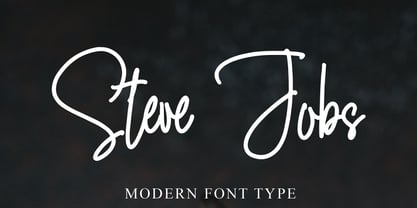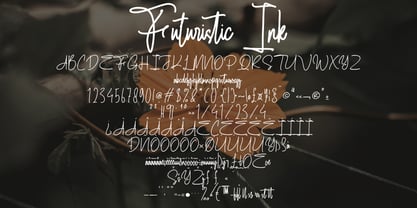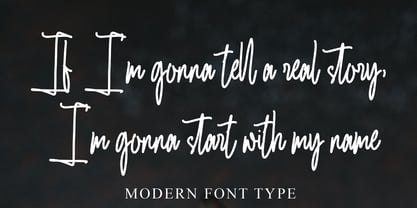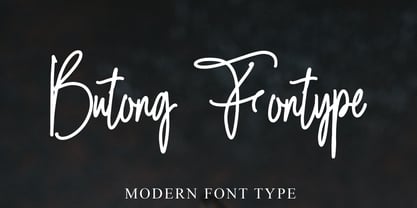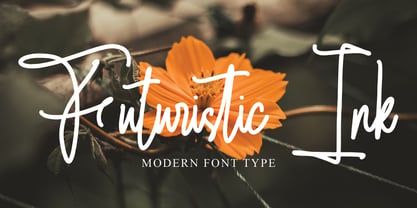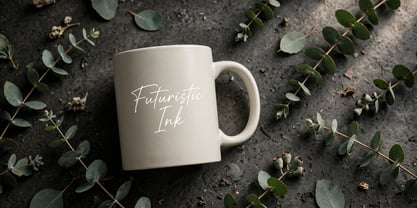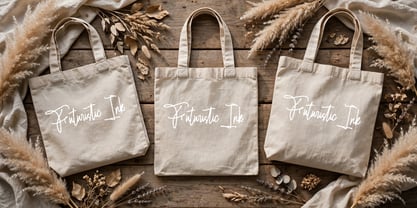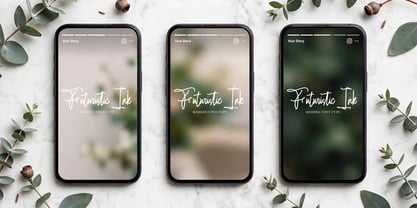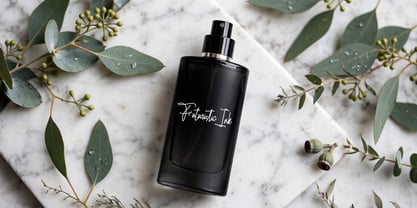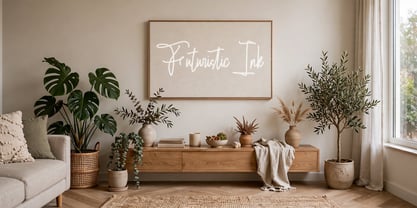
Futuristic Ink
by Ayska
The Futuristic Ink Font Family was designed by Dhoni Trihatmoko and published by Ayska. Futuristic Ink contains 1 styles. More about this family
Immerse yourself in the captivating world of Futuristik Ink, an extraordinary font that perfectly melds modern flair with the rustic grace of hand-drawn typography. Futuristik Ink exudes a refined sophistication that propels it into its own exclusive class, transforming it into an essential resource for all creative pursuits. Allow this mesmerizing font to engage your blog audience, impart a unique signature look to your digital planner designs, add an intriguing touch to your party invitations, and convey emotions in your homemade greeting cards with tasteful finesse. Explore the unending elegance and imaginative vibrancy of Futuristik Ink and witness how it breathes new life into your carefully curated photo albums or customized home decor collections. This font's exceptional ability to transform mundane digital creations into riveting visual narratives is unequaled. Elevate your creative exploration with Futuristik Ink at your disposal and marvel at how your artistic vision unfurls into exceptional masterpieces. Yield to the irresistible charm of Futuristik Ink's hypnotic design prowess as it transforms your creative ideas into stunning, radiant works of art.